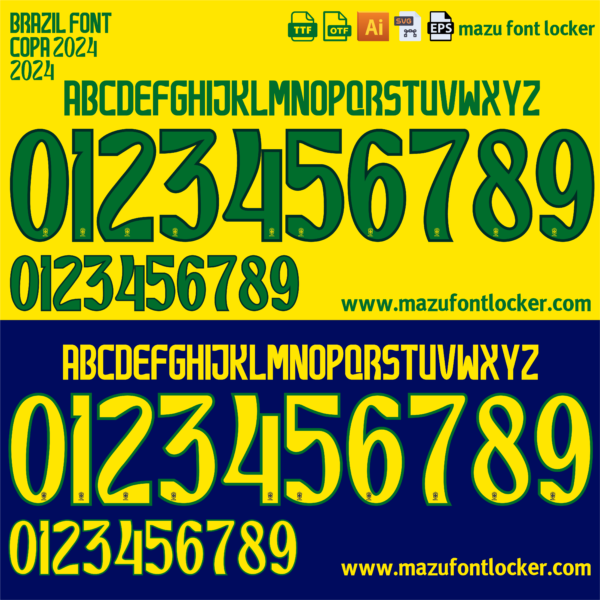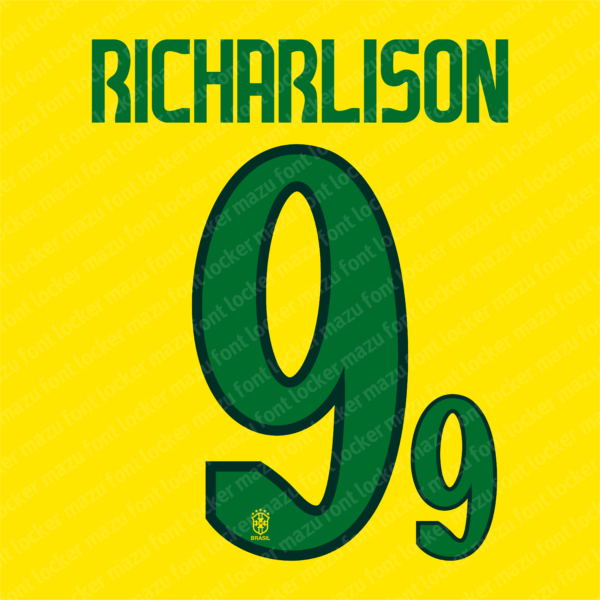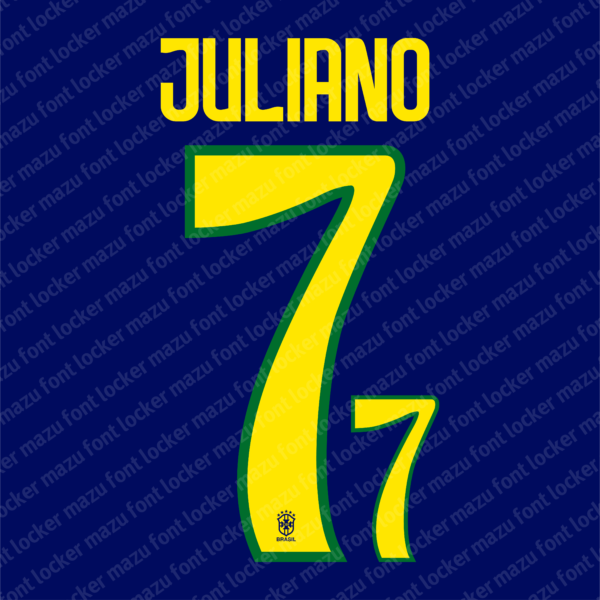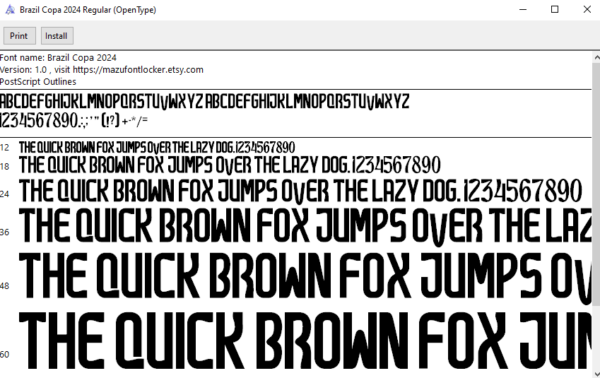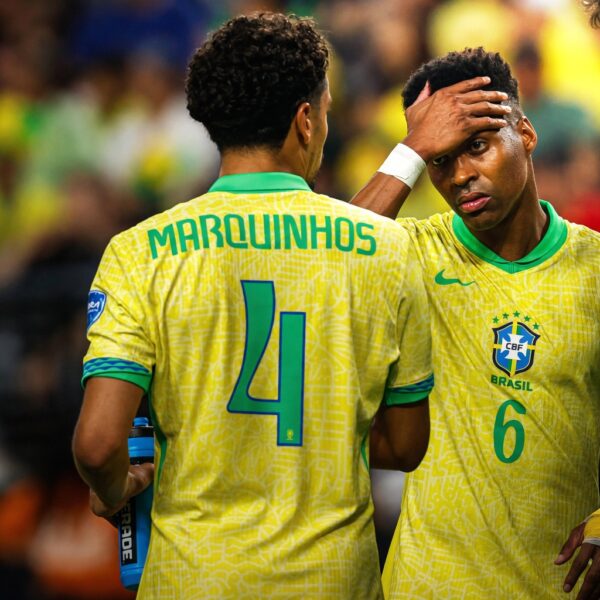
Brazil Copa America 2024 Font – Explosive Verde-Amarelo Masterpiece
Download the Brazil Copa America 2024 Font and bring the unstoppable energy of the Seleção straight into your designs. This premium Brazil Copa America 2024 Font perfectly captures the bold, vibrant typography used during Brazil’s thrilling Copa America 2024 campaign, full of passion, flair, and championship spirit.
Every letter and number is crafted with sharp precision to reflect the iconic green and yellow identity, Samba rhythm, and attacking brilliance that defines Brazilian football. Whether you’re creating match posters, social media graphics, custom jerseys, fan merchandise, or digital content, the Brazil Copa America 2024 Font delivers authentic power and eye-catching presence that instantly commands attention.
Feel the heartbeat of the Brazilian nation with this high-quality, fully vectorized font. Scalable, easy to install, and built for both print and digital perfection, the Brazil Copa America 2024 Font is a must-have for designers and football fans who want to celebrate the legendary spirit of the Canarinho in their projects.
- Authentic Copa America 2024 Brazil jersey lettering style
The authentic lettering style helps recreate the classic look of the Brazil Copa America 2024 kit with professional accuracy.
Unlike generic jersey fonts, this premium set is crafted with obsessive focus on authenticity and unmatched precision. Every detail is meticulously recreated from the original match lettering style used by Brazil during the legendary Copa America 2024 campaign, helping designers and collectors create ultra-realistic football shirt designs that radiate pure Seleção greatness.
This Brazil Copa America 2024 font vector set is designed for authentic football jersey customization and works perfectly for retro football projects, collector designs, and professional sportswear artwork.